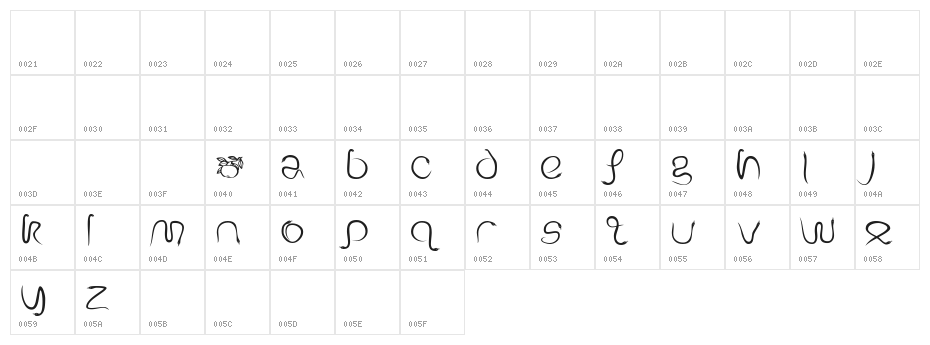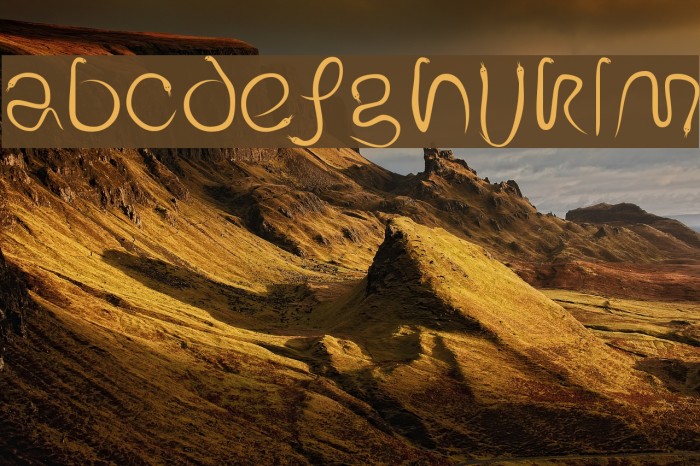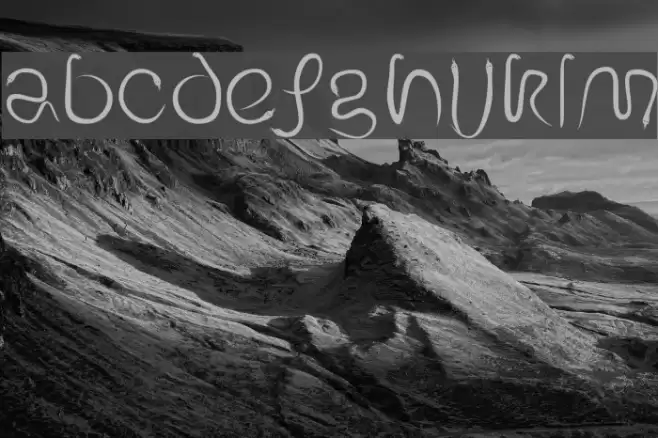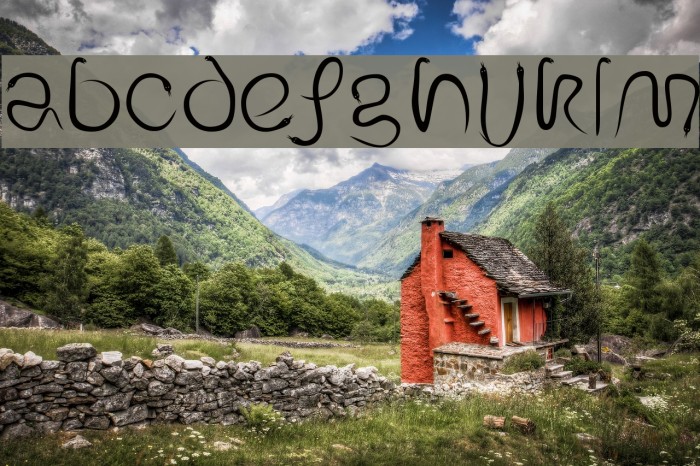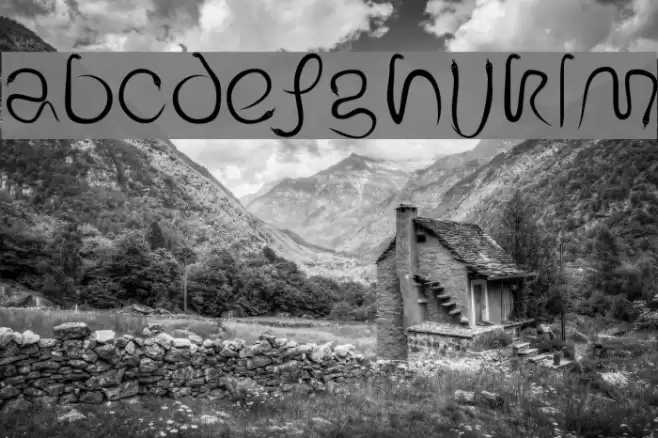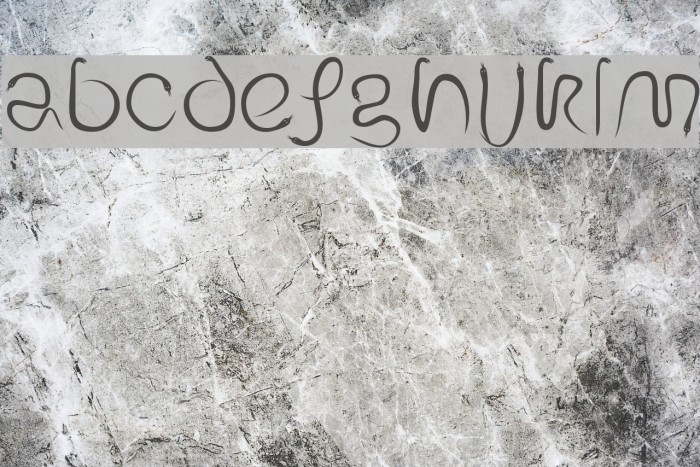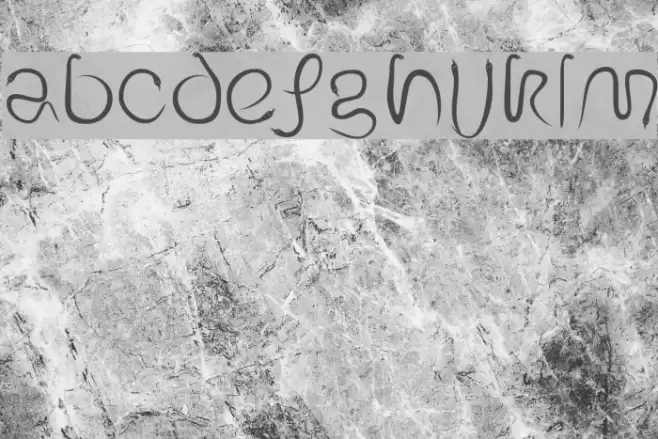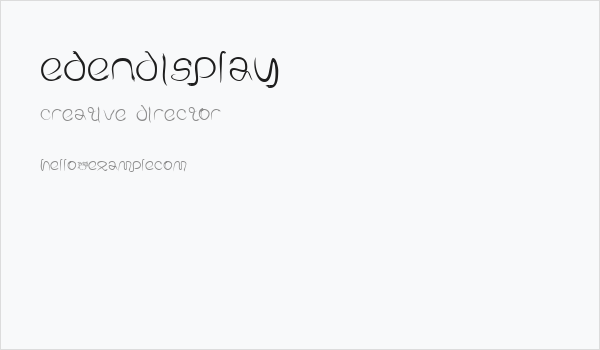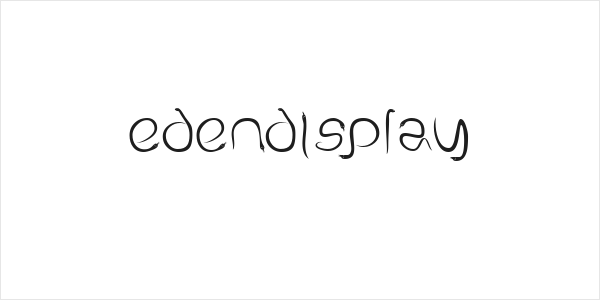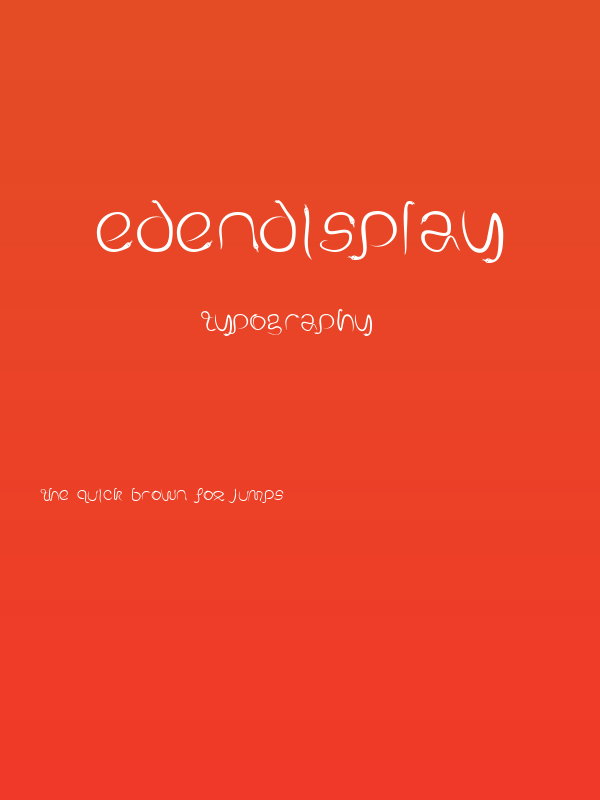
EdenDisplay Font
EdenDisplay Description
This font features a unique and artistic design, characterized by its flowing, brush-like strokes that give it a dynamic and organic feel. The letters are crafted with a sense of movement, as if they were painted with a calligraphic brush, creating an elegant yet edgy appearance. The strokes vary in thickness, adding a sense of depth and texture to the characters. This font stands out with its decorative flair, making it suitable for creative and expressive projects. The overall style is modern with a touch of artistic flair, making it ideal for capturing attention and conveying a sense of creativity.
| Proposed Projects | Ideal for artistic projects, branding, logos, posters, and creative headlines. |